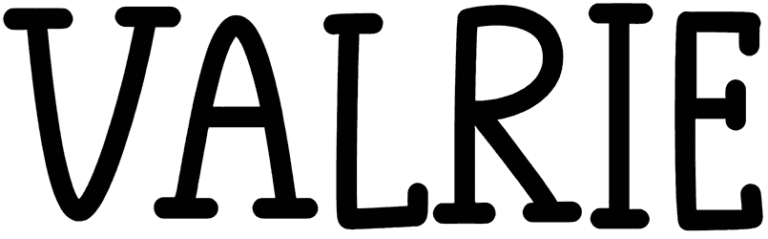
Beannie Owners Font
One of the best ways to boost your lettering is by choosing a typography font. In the case of Beannie Owners, you get to kill two birds with one stone, since it’s set to bring along a modern quality, too. It takes a while to get used to its unorthodox letterforms, but at least you’ve got them all in capitals. The numbers aren’t supported either, but who needs those when you use them as a logo font for jewelry, crystal products, etc?